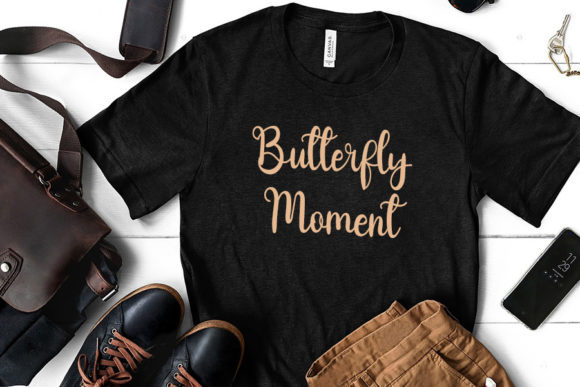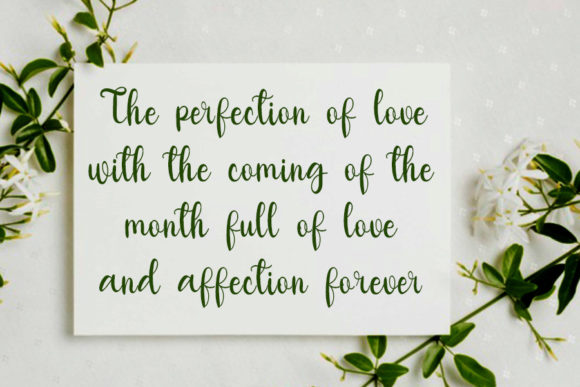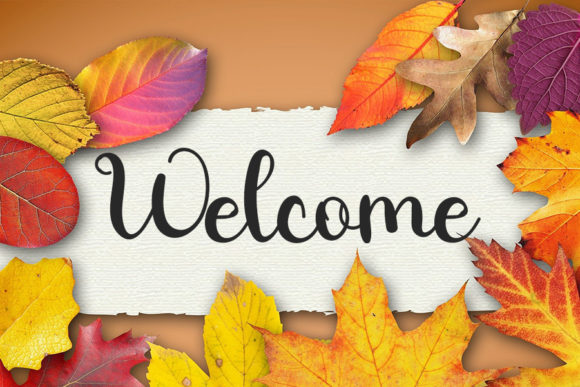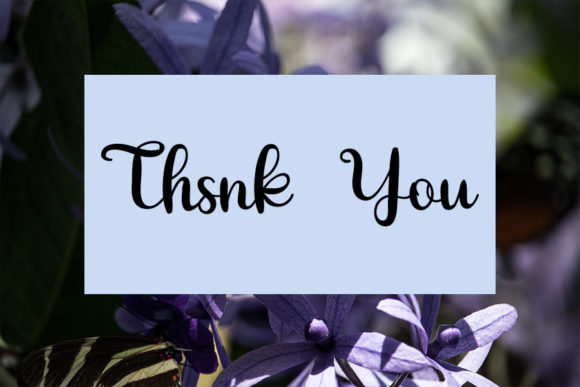
Butterfly is a chic, refined script font that emanates sophistication and elegance. Its stylish alternates and ligatures make this font the perfect match for any project.